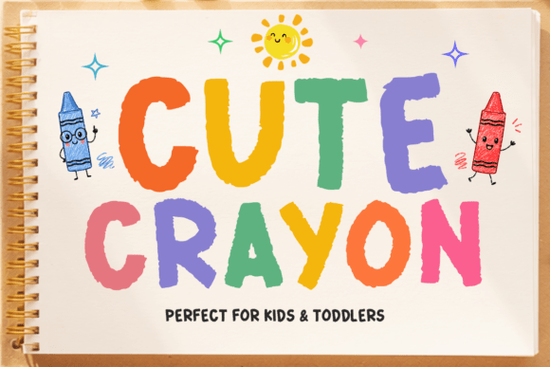
If you're looking for a friendly, hand-drawn font that feels like it came straight from a child’s coloring book, Cute Crayon Font is a great choice. It’s not overly polished or digital-perfect and that’s exactly why it works so well for projects aimed at young kids, early learning materials, playful branding, or cheerful printables. The texture, slight irregularity, and chunky letterforms mimic real crayon strokes, giving your text warmth and personality without feeling gimmicky.
Who actually uses Cute Crayon Font and why?
This font shines in real-world creative work not just as a novelty. Teachers use it for classroom signs, name tags, and visual schedules because it’s highly legible at a glance and feels inviting to little learners. Print-on-demand sellers add it to baby onesies, nursery wall art, and toddler activity books where authenticity matters more than sharp edges. Crafters choose it for handmade greeting cards, sticker sheets, and DIY party decor especially when they want to avoid sterile sans-serifs or overused script fonts.
It’s also popular with small businesses launching kid-focused products: think organic snack packaging, Montessori-inspired learning kits, or local preschool newsletters. Unlike some “cute” fonts that lean too cartoonish or hard to read at small sizes, Cute Crayon balances charm and clarity especially in display settings like posters, banners, or social media graphics.
How does it compare to other hand-drawn display fonts?
Not all playful fonts behave the same way. For example, Spooky Moon Font leans into Halloween whimsy with bolder shadows and uneven baselines great for seasonal designs but less versatile for everyday kid projects. Subway Graffiti Font brings urban energy and spray-paint texture, which suits teen brands or streetwear better than preschool themes. And while Chocolate Candies Family Font has a sweet, rounded charm, its smoother outlines lack the tactile, waxy grit that makes Cute Crayon feel genuinely hand-colored.
Even classic options like Vintage Bold Font offer strong presence and retro appeal, but they don’t replicate the soft, slightly smudged quality of crayon on paper. That subtle imperfection is what helps Cute Crayon Font stand out in a crowded marketplace especially if you’re designing for audiences who value authenticity and gentle aesthetics.
It includes uppercase letters, numerals, and basic punctuation enough for headlines, labels, and short phrases. Just keep in mind it’s designed for display use, not long paragraphs. Think titles, product names, chalkboard-style quotes, or decorative accents rather than body text.
Where do people pair it with other fonts?
Designers often combine Cute Crayon Font with clean, neutral sans-serifs like Poppins or Open Sans for contrast letting the crayon style shine while keeping supporting text readable. Some crafters layer it over subtle watercolor textures or kraft paper backgrounds to deepen the handmade feel. Others use it alongside simple line-art clipart (like apples, stars, or smiling animals) to build cohesive themed bundles for sale on Creative Market or Etsy.
- ✅ You need a friendly, hand-drawn display font not a full text face
- ✅ Your project targets kids ages 0–6, early educators, or playful small-business branding
- ✅ You’re okay with uppercase-only styling and no lowercase alternates
- ✅ You’ll use it mostly for headlines, signs, stickers, or printable decor not body copy
- ✅ You want something that feels authentic, not overly filtered or digitized
If those match your needs, Cute Crayon Font is worth trying. It’s one of those quiet workhorses not flashy, but dependable and full of heart.